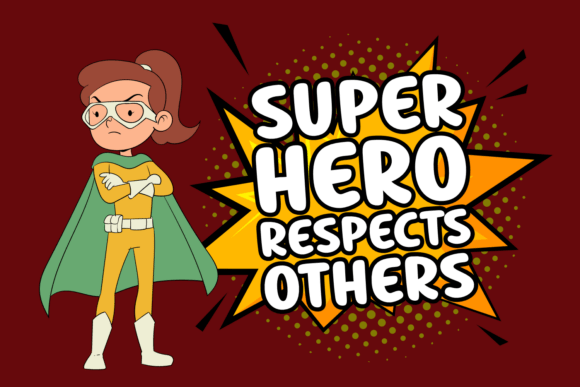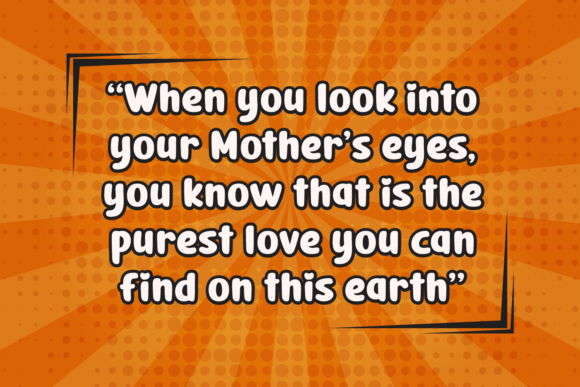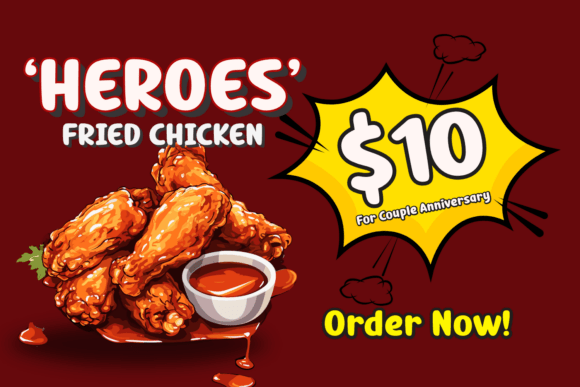
Dingo Comics Font: Unleash the Energy of Comic Book Style
Are you looking for a font that can add a burst of energy and excitement to your designs? Look no further than Dingo Comics Font! This bold, playful typeface is designed to bring the classic comic book look to life, making it perfect for a variety of projects, from comic strips and children’s books to social media graphics and poster designs.
The Classic Comic Look
Dingo Comics Font is inspired by the iconic comic book style that instantly grabs attention. With its chunky, rounded letterforms and thick outlines, this font captures the essence of the classic comic look that has been thrilling readers for decades. The dramatic contrast and lively curves of Dingo Comics deliver a fun and dynamic style that is sure to make your message pop with vibrant personality.
Whether you’re a designer, craft, or simply a DIY enthusiast, Dingo Comics Font is the perfect choice for any project that requires a bold and playful touch. Here are some ideas to get you started:
- Comic Strips: Create your own comic strips with Dingo Comics Font and bring your characters to life.
- Children’s Books: Add a touch of fun and whimsy to your children’s books with this playful font.
- Social Media Graphics: Make your social media posts stand out with Dingo Comics Font and add a burst of energy to your online presence.
- Poster Designs: Create eye-catching posters with Dingo Comics Font and grab the attention of your audience.
Key Features of Dingo Comics Font
So, what makes Dingo Comics Font so special? Here are some of its key features:
- Bold and Playful: Dingo Comics Font is designed to be bold and playful, making it perfect for projects that require a fun and energetic touch.
- Chunky, Rounded Letterforms: The chunky, rounded letterforms of Dingo Comics Font give it a unique and distinctive look that is sure to grab attention.
- Thick Outlines: The thick outlines of Dingo Comics Font add depth and dimension to your designs, making them stand out from the crowd.
- Dynamic Style: The dramatic contrast and lively curves of Dingo Comics Font deliver a fun and dynamic style that is perfect for a variety of projects.
Tips for Using Dingo Comics Font
Here are some tips for getting the most out of Dingo Comics Font:
- Use it for Headlines: Dingo Comics Font is perfect for headlines and titles, where its bold and playful style can really shine.
- Experiment with Colors: Don’t be afraid to experiment with different colors and combinations to really make your designs pop.
- Pair it with Other Fonts: Try pairing Dingo Comics Font with other fonts to create a unique and interesting contrast.
- Have Fun: Most importantly, have fun with Dingo Comics Font! Its playful style is designed to bring a smile to your face and inspire your creativity.
In conclusion, Dingo Comics Font is a bold, playful typeface that is perfect for designers, crafters, and DIY enthusiasts who want to add a burst of energy and excitement to their projects. With its chunky, rounded letterforms and thick outlines, this font captures the classic comic book look that instantly grabs attention. Whether you’re creating comic strips, children’s books, social media graphics, or poster designs, Dingo Comics Font is the perfect choice for any project that requires a fun and dynamic style.